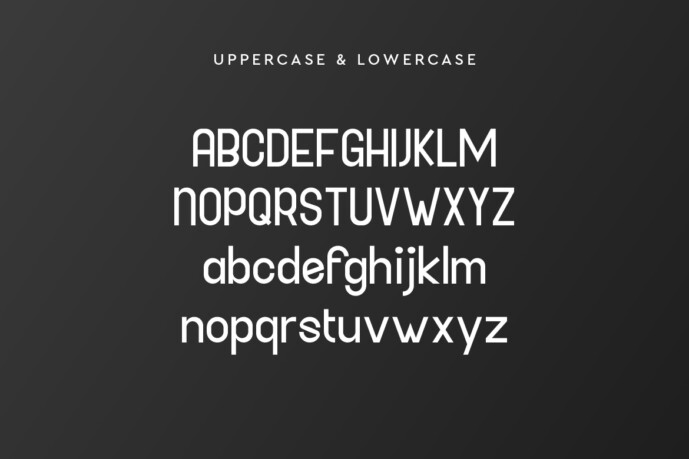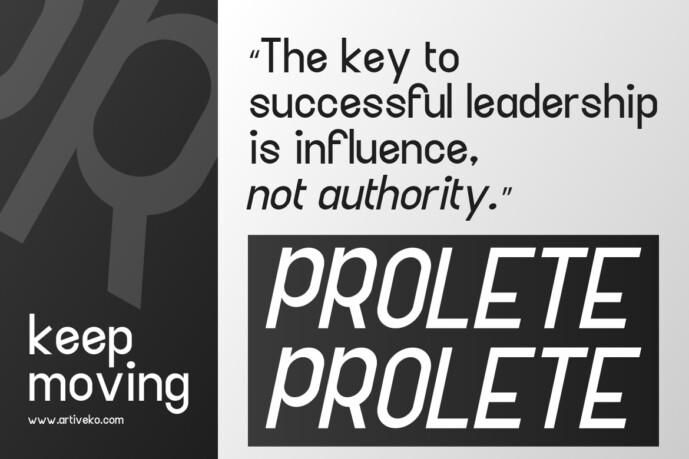
Daggadu Font
Daggadu Font is a modern sans serif font crafted by Iwan Alwan, featuring unique shapes with distinct variations in uppercase and lowercase letters. It supports multiple languages, making it versatile for various design needs. Ideal for magazines, business cards, posters, and more, Daggadu adds a stylish, contemporary touch to any project.